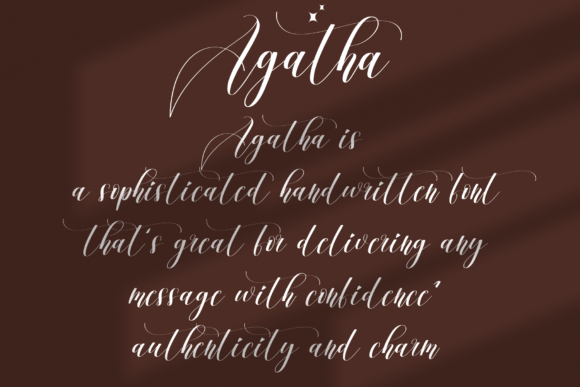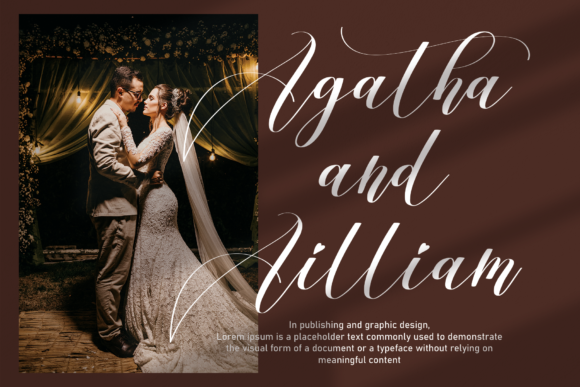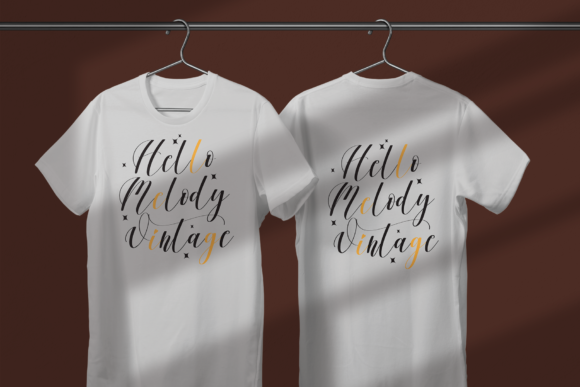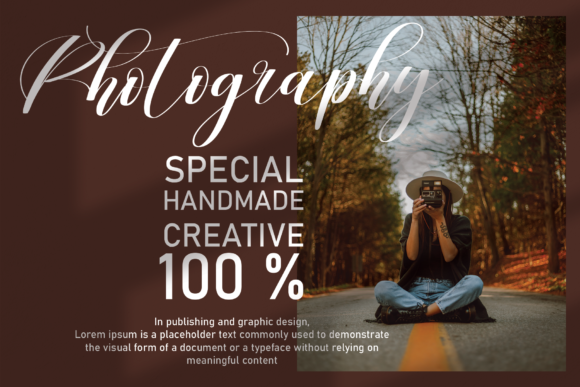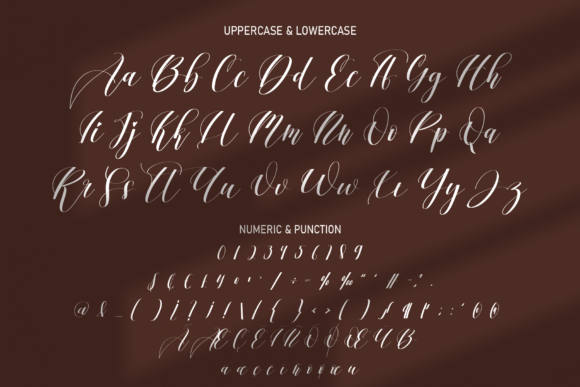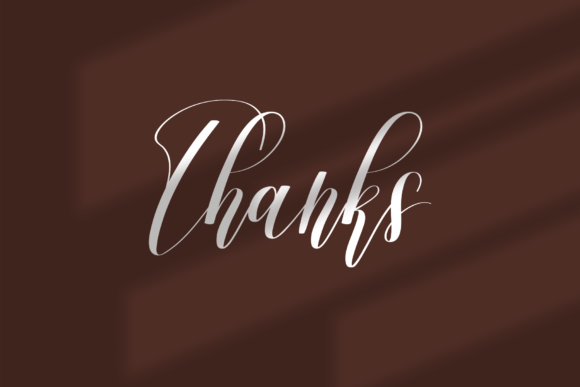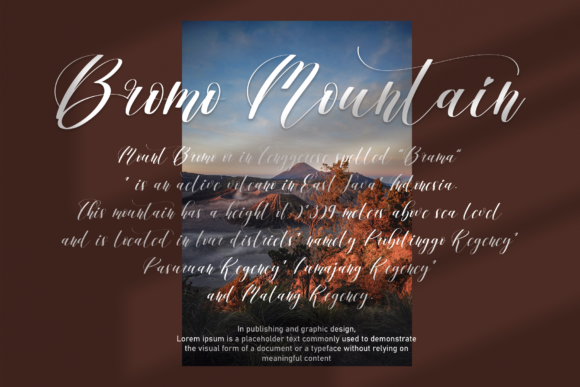
About Agatha Font
Agatha is a delicate and elegant handwritten font. Its distinct and well balanced letters make this font a masterpiece. Fall in love with its incredibly versatile style and use it to create spectacular designs!